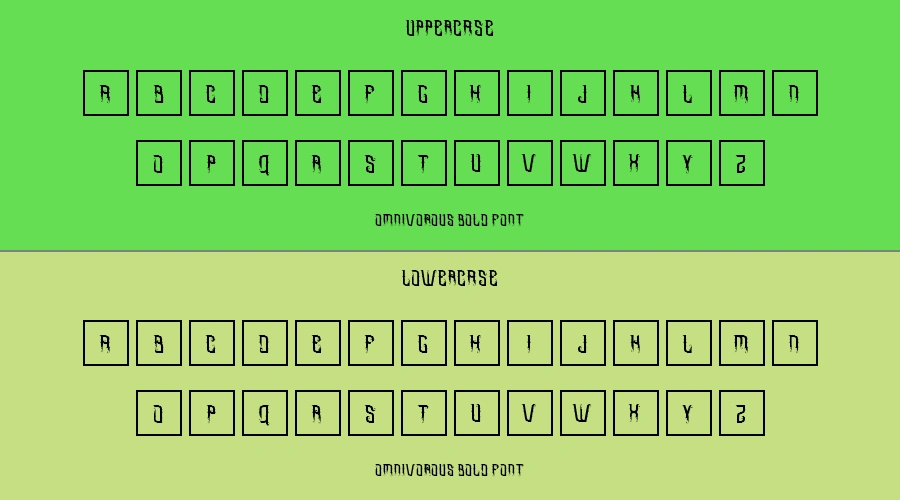
About Omnivorous Bold Font
Omnivorous Bold Font embodies typographic excellence through its masterful combination of fluid connections and technical accuracy. Created for billboard design, this typeface delivers exceptional distinctiveness and market appeal across all applications. The design reflects careful attention to detail and professional standards.
Advanced capabilities include distinctive modular forms and versatile brand signatures, giving designers creative control. When used in formal invitations, Omnivorous Bold Font exhibits remarkable body text reading. The harmonious balance between contrast level and engineering heritage sets this typeface apart.